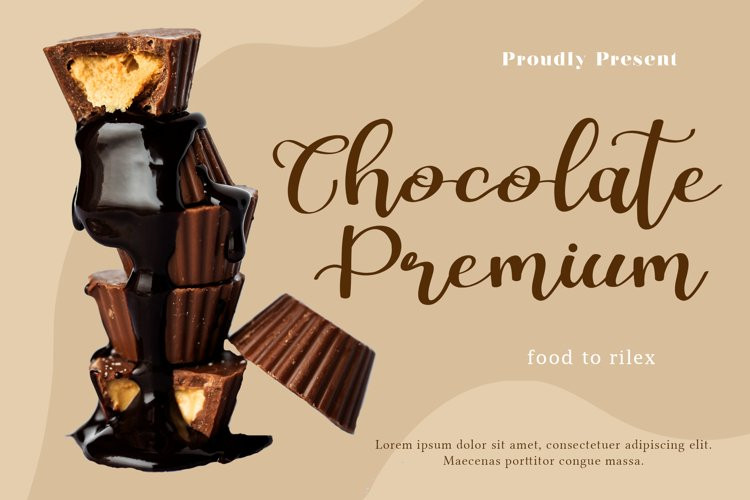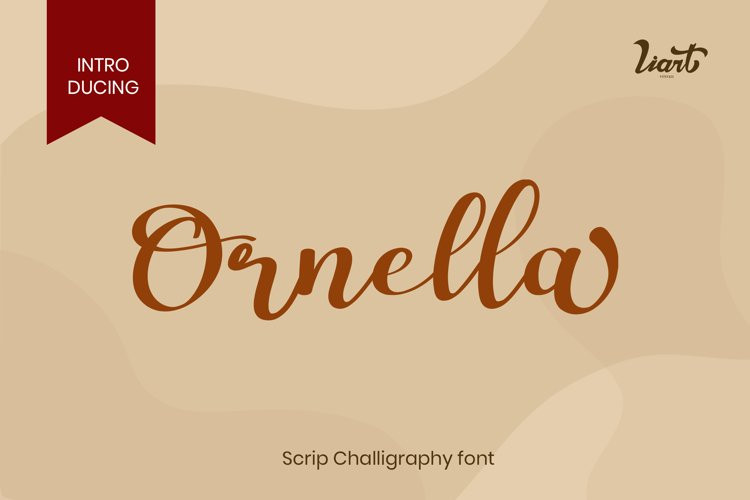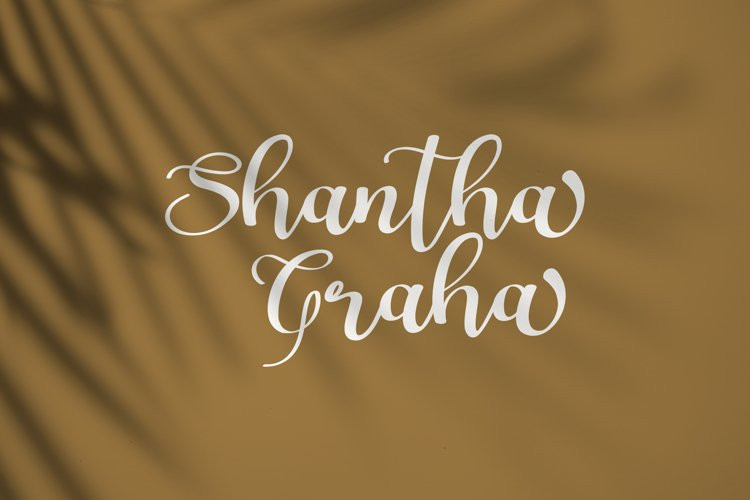
Ornella Font
Ornella FontMeet our newest product, we call this product Ornella font.
Ornella font are cute typeface font
Whit a uniqe touch and assertive
Ornella font is very nice to use on:
fashion magazine,logos, ,and photography,landing page,fliyer,